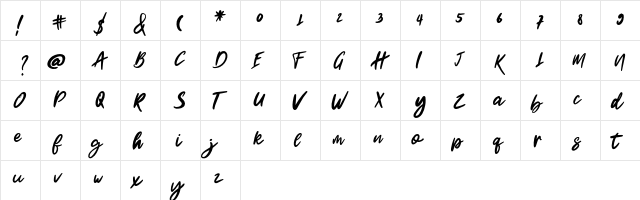
Diligent Regular
Design Context for Diligent Typeface
Diligent is a composed and adaptable typeface that performs quietly and consistently across a wide range of design contexts.
Pro Tip: Pair Diligent with a font of contrasting weight or personality to build a more expressive typographic hierarchy.